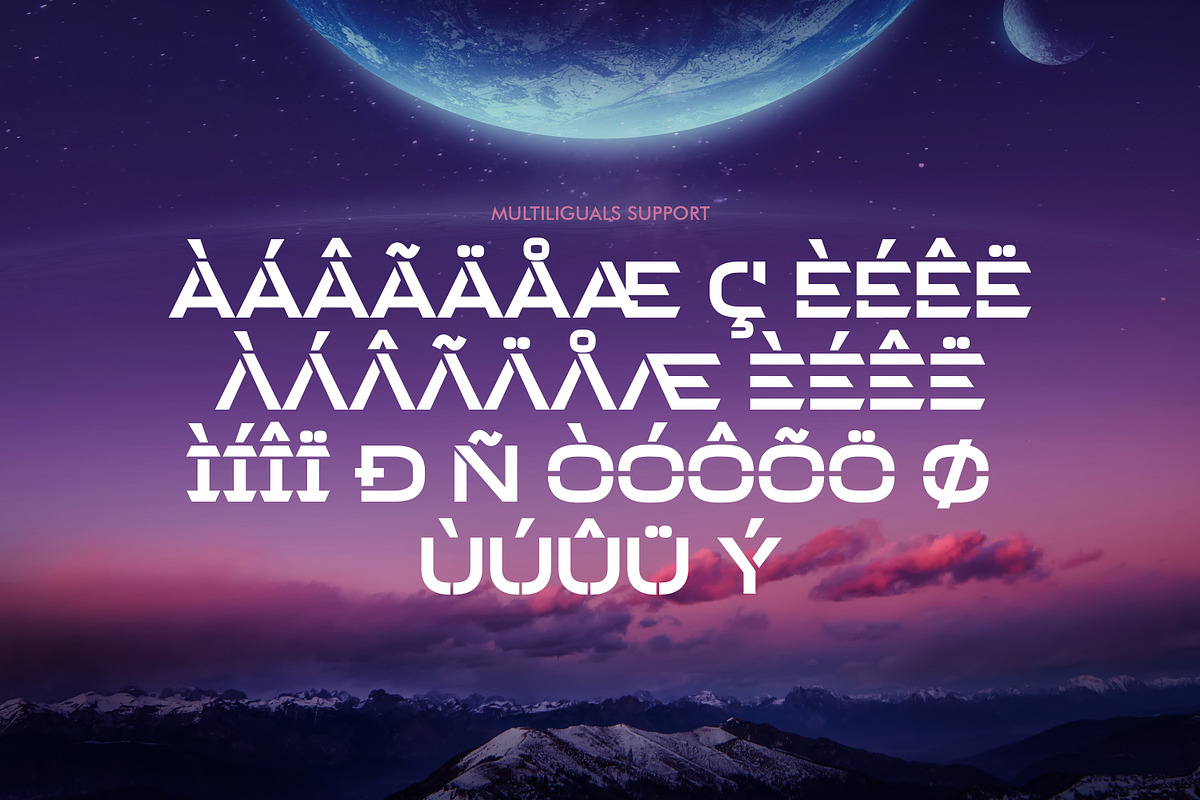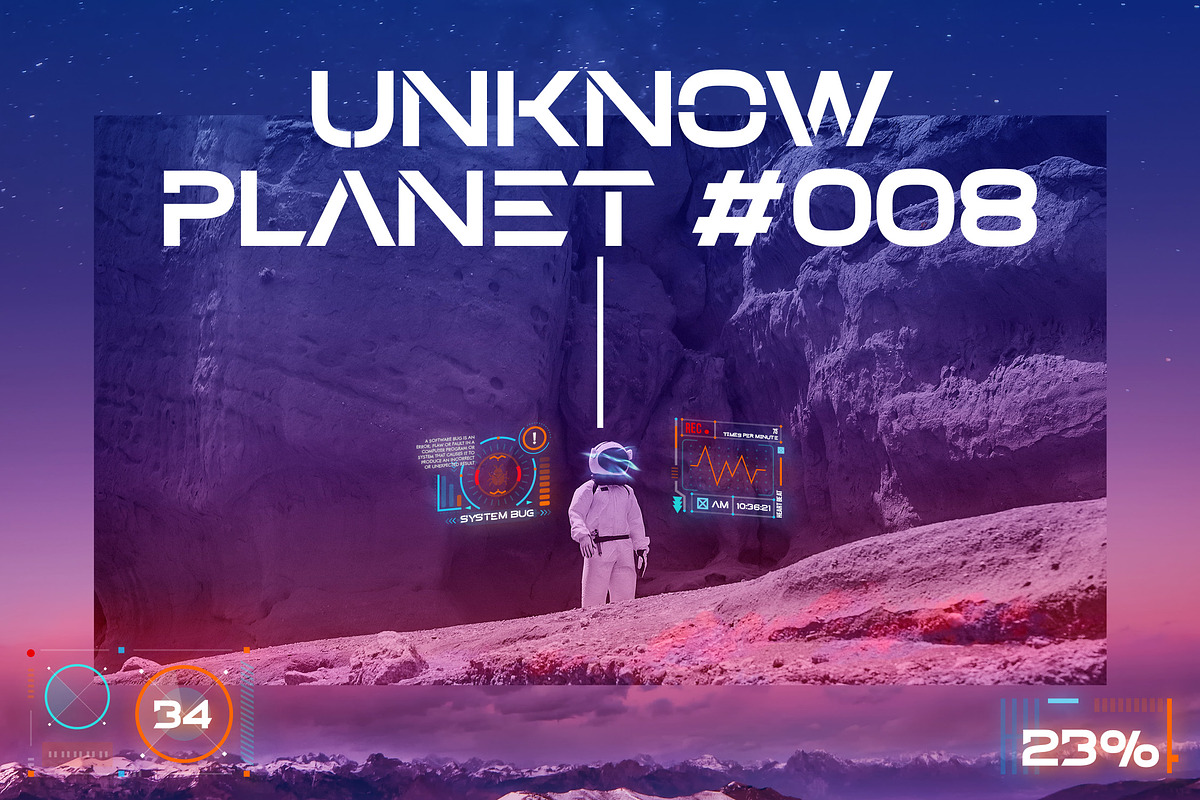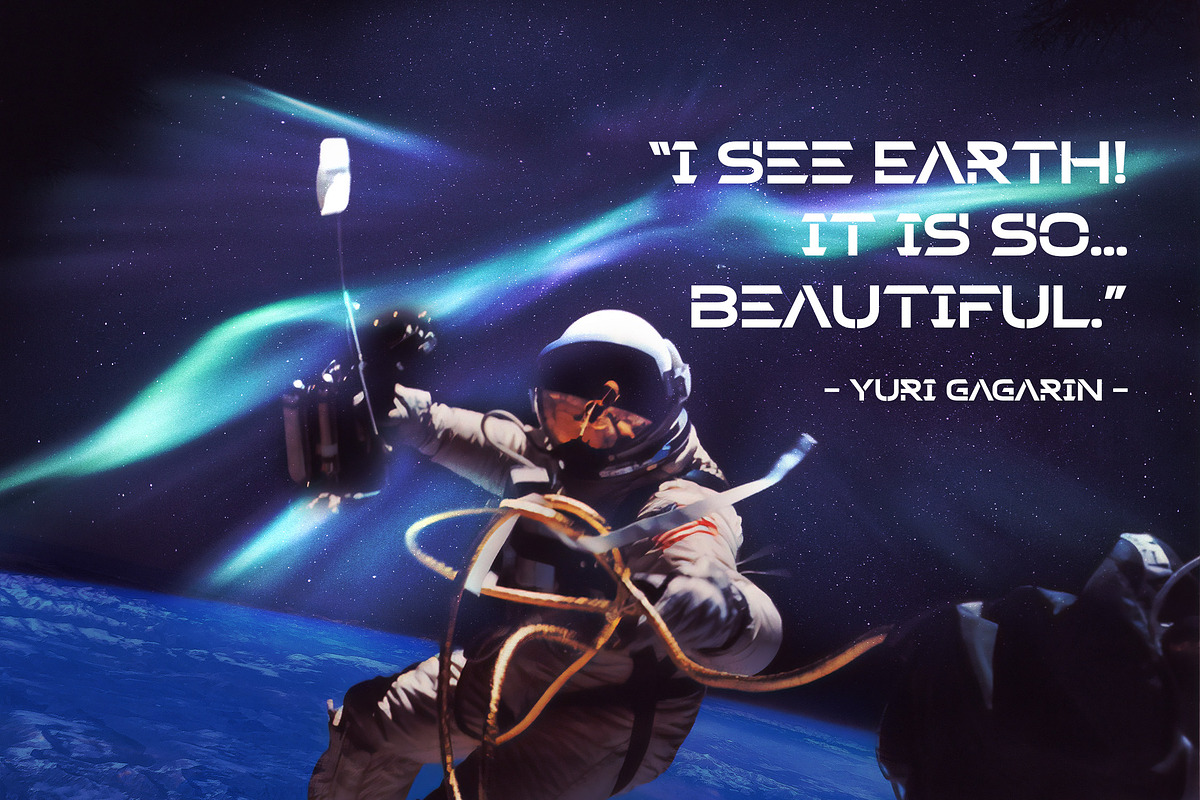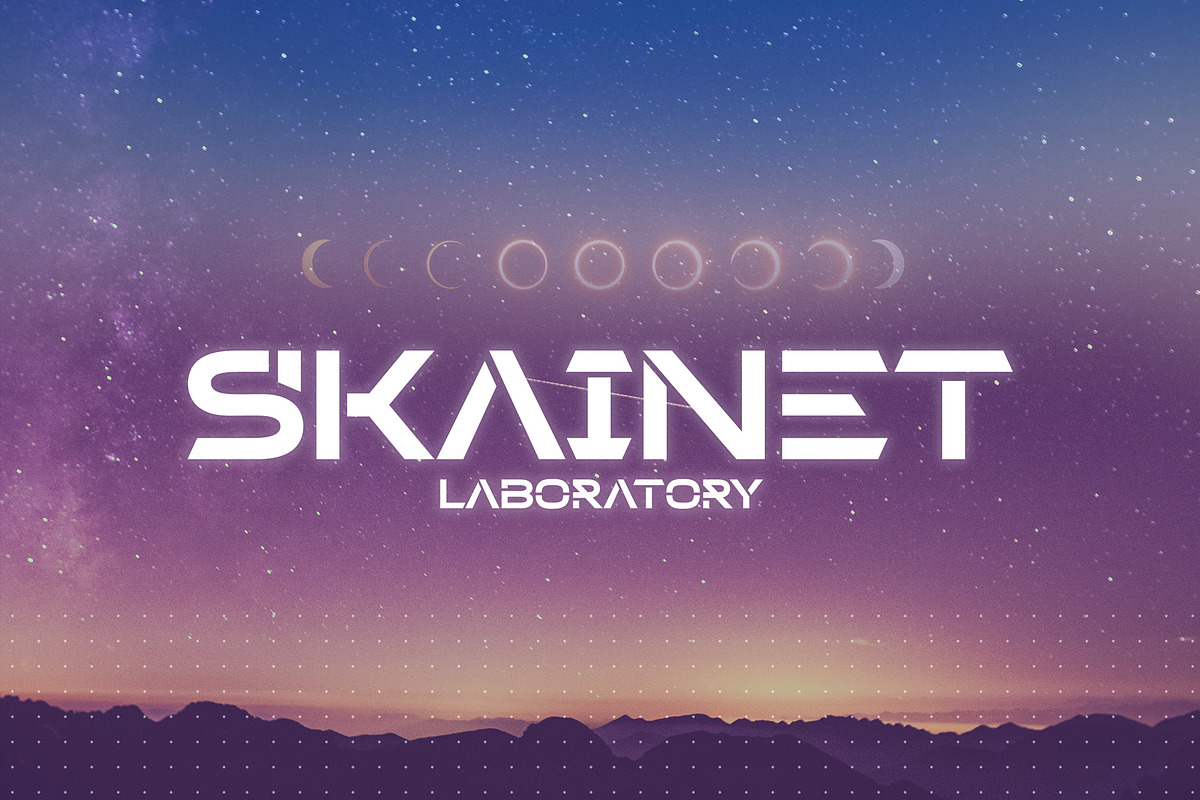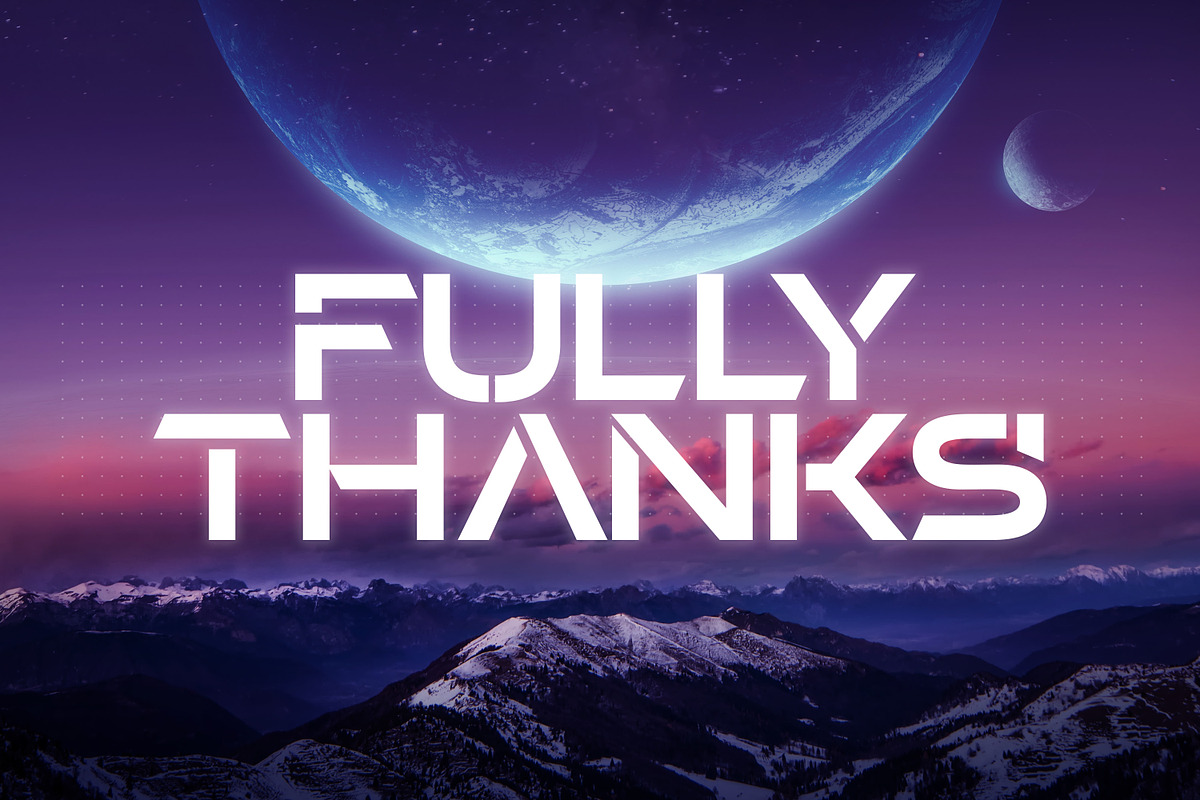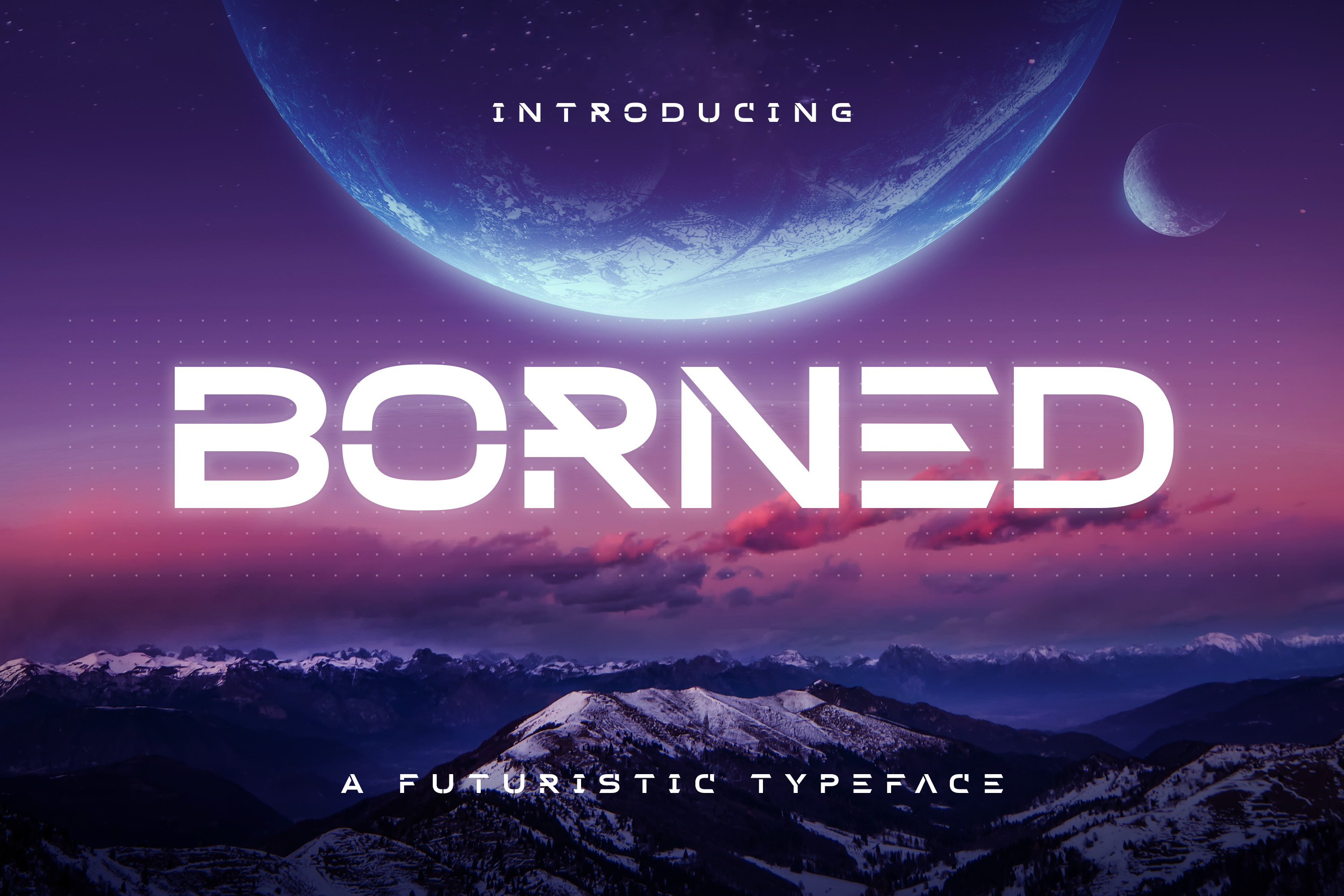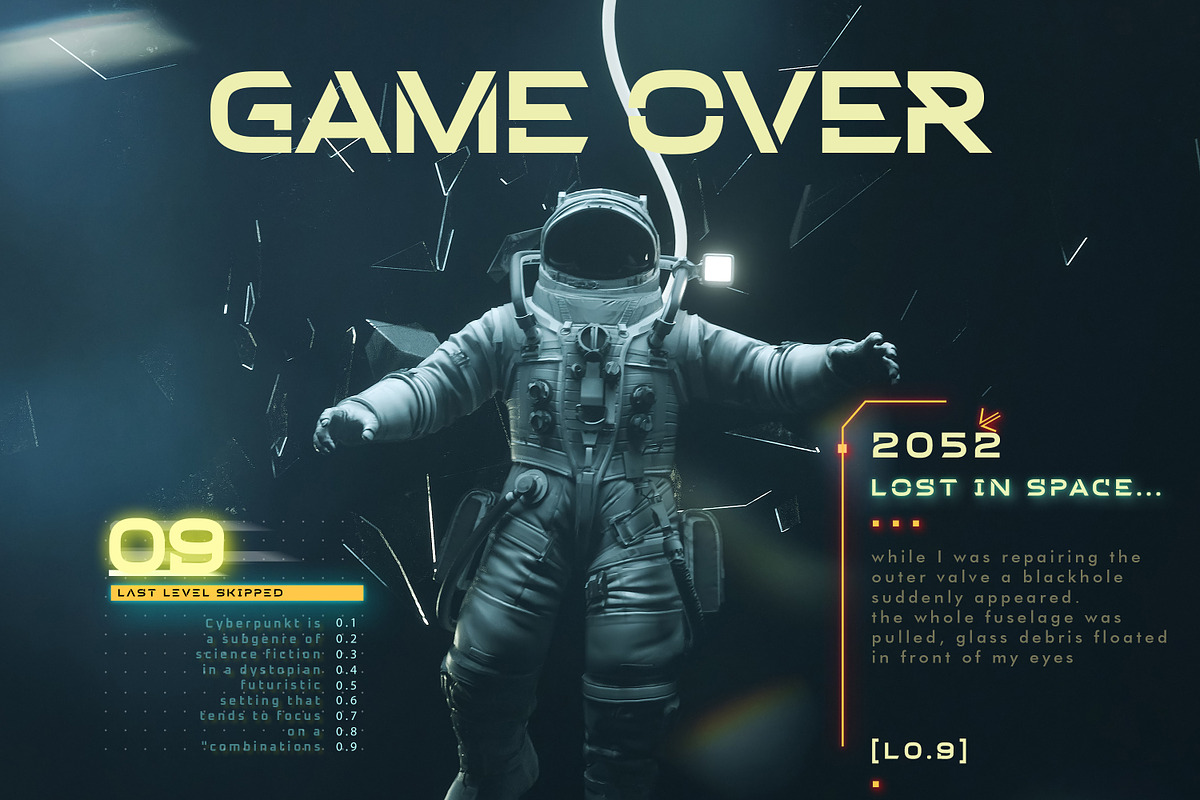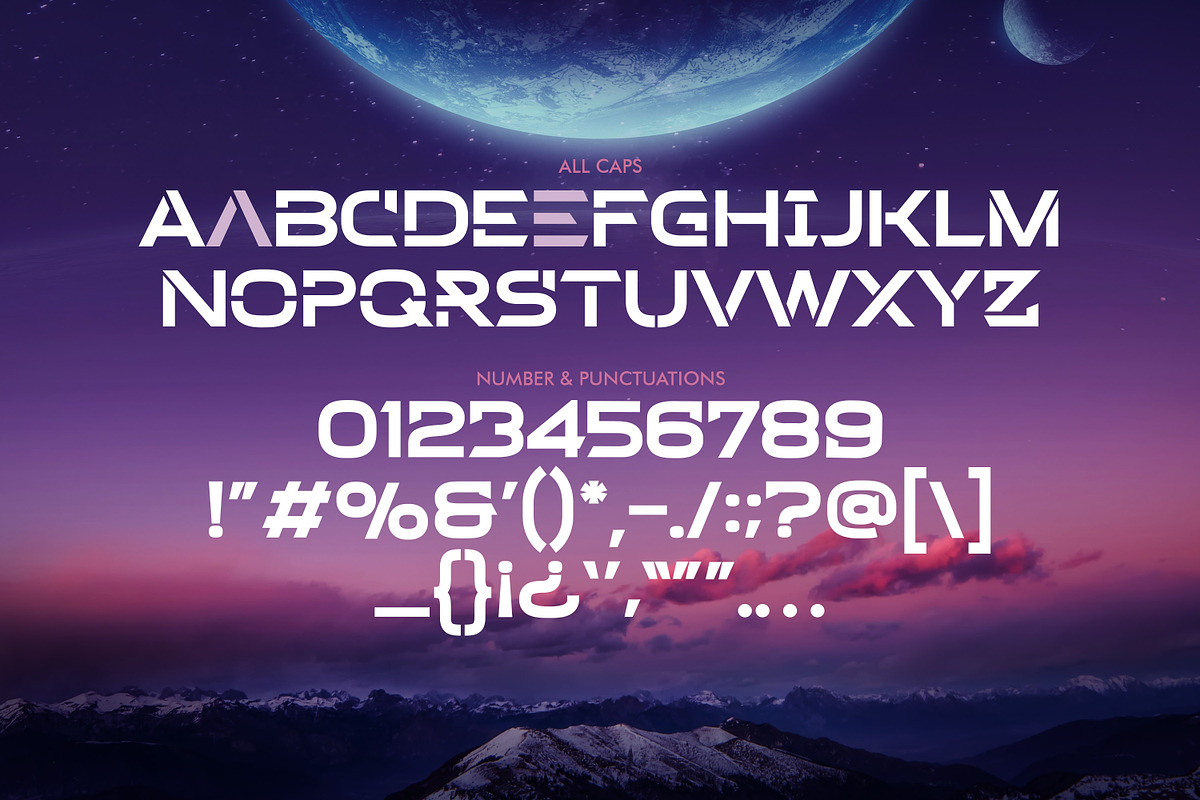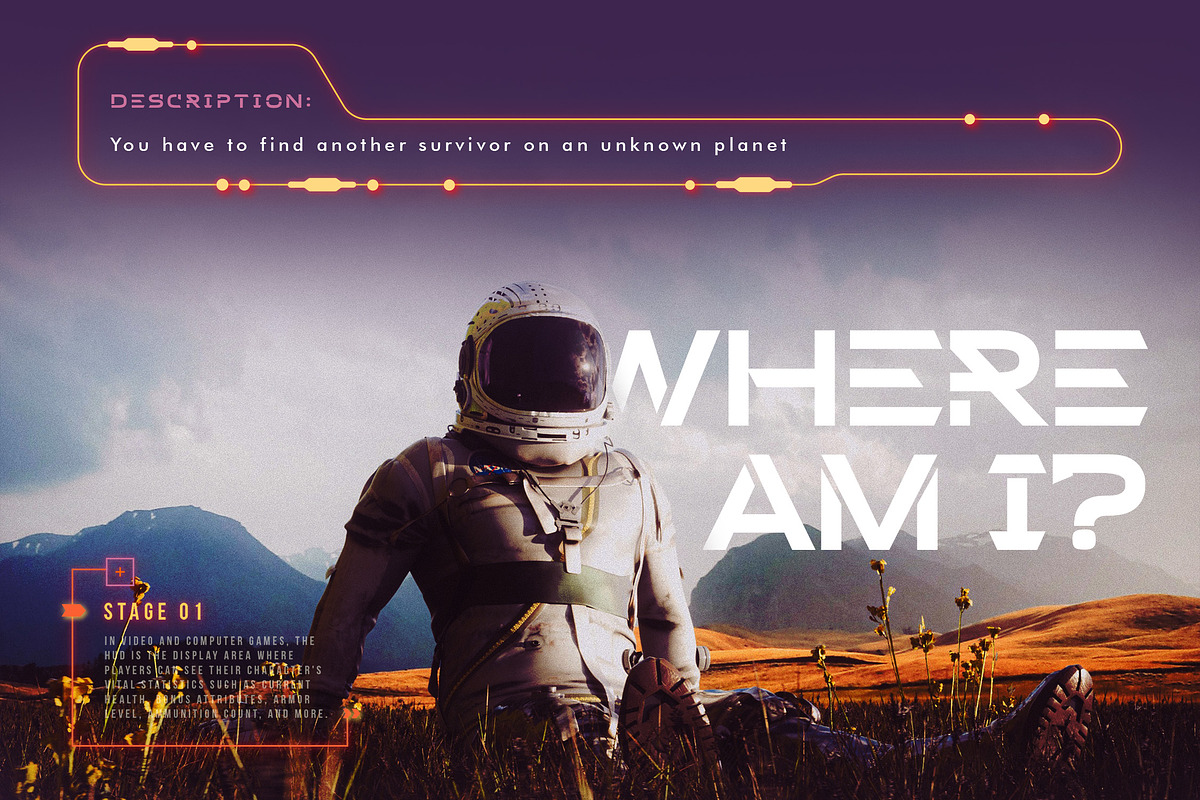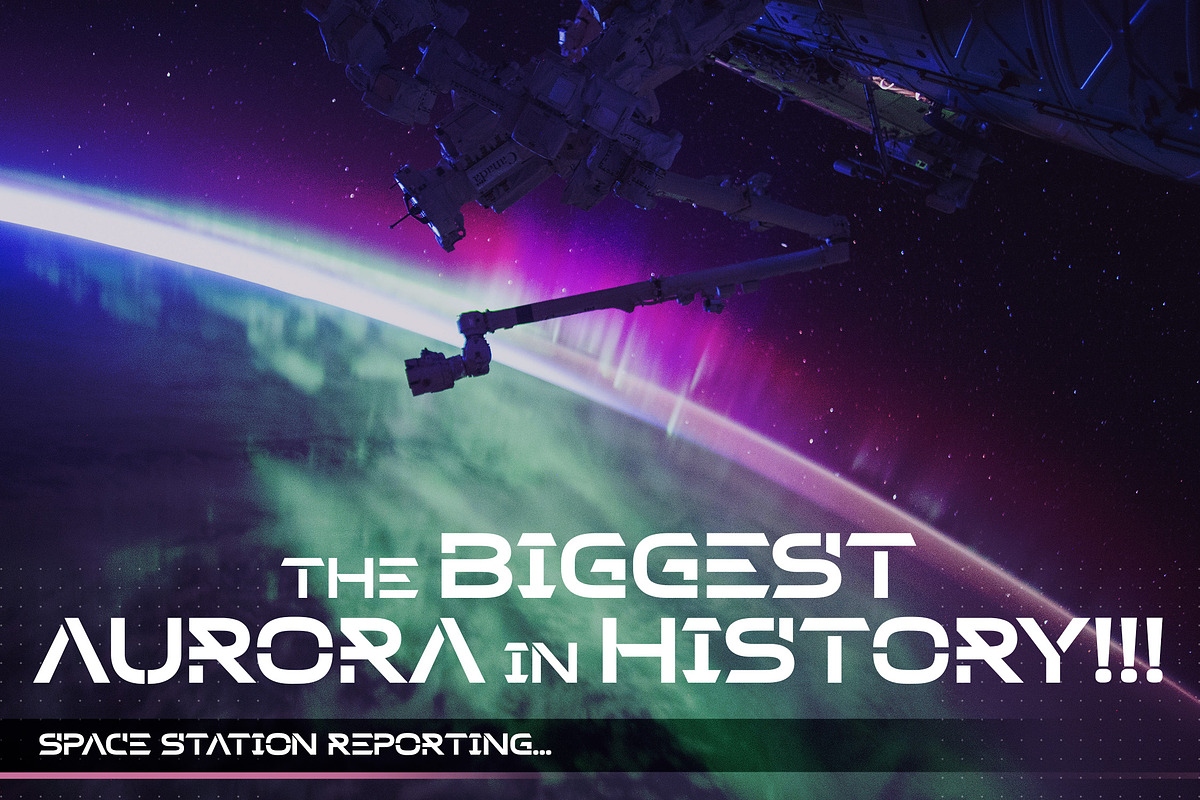
Borned - Futuristic Display Font
Hello Everyone, Introduce our new collection, Borned - Futuristic Display, Inspired from famous logos of Futuristic Style and brands that have very strong characteristics, Borned font with strong and challenging nuances. very suitable for the title, typography, Poster, magazines, brochures, packaging,Websites and much more for your design needs, making your designs more modern and professional